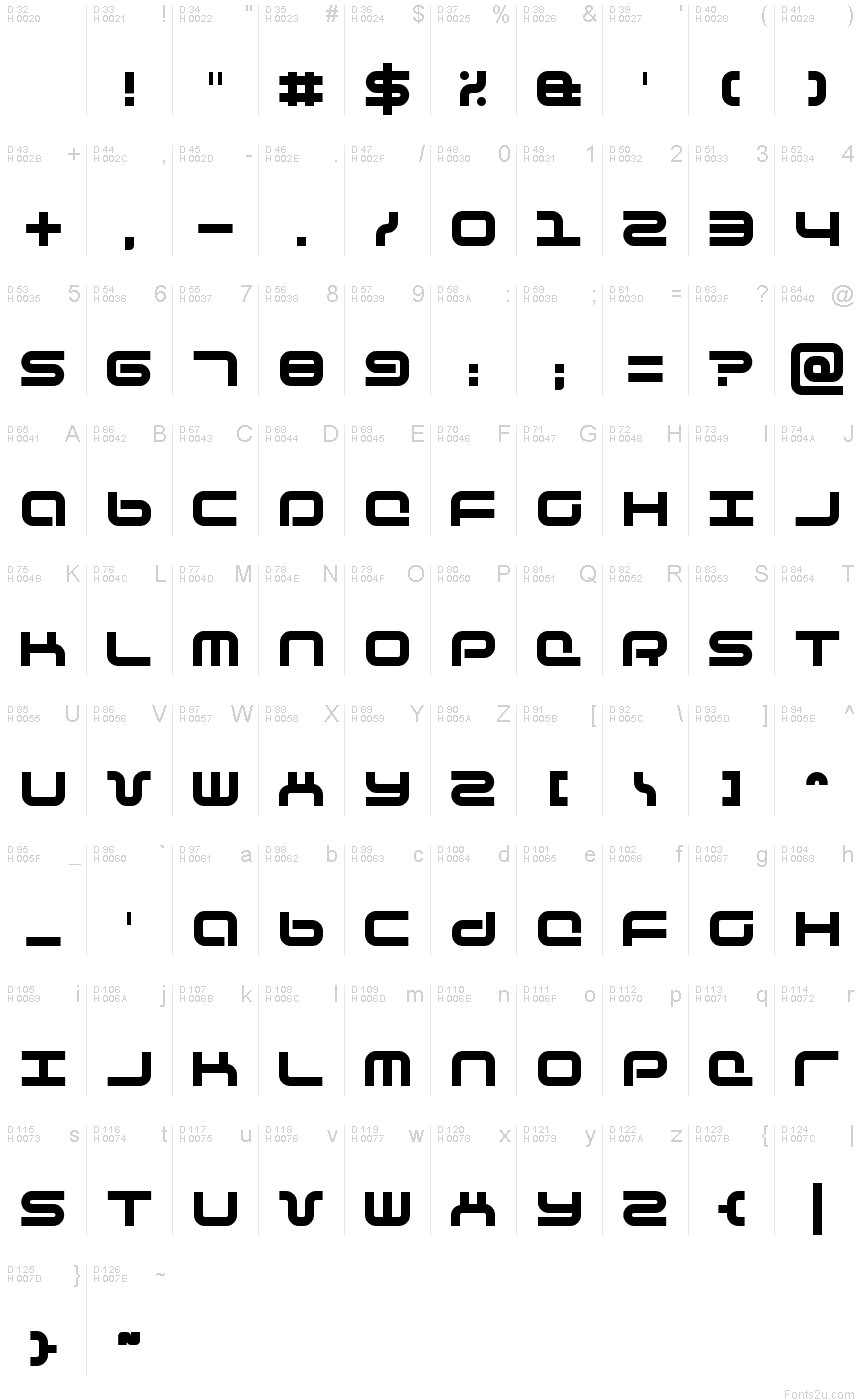
Phutura
Phutura by Andreas Nylin is a free modern display font with a clean retro-futurist pull. The caps feel built from broad, rounded rectangular paths, mixing soft outer curves with sharp cuts and deep vertical weight so the letters read like sleek signage from an imagined late-20th-century future.
That makes it a natural pick for posters, record sleeves, tech branding, title cards, and magazine cover lines where a few words need a bold synthetic mood. As a free font, it also suits logos, monograms, and short headings, because the repeated rounded corners and clipped inner spaces give even brief settings a strong, unified shape.